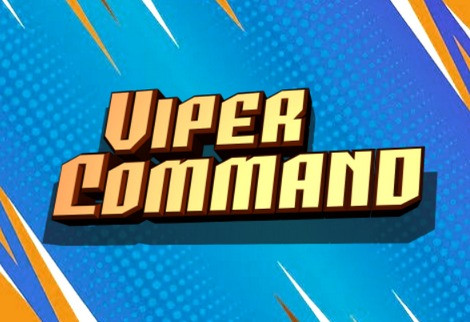
Viper Command Font
Viper Command Font is a bold, high-impact display font designed to command attention. With its strong geometric structure, sharp angles, and dynamic letterforms, Viper Commanddelivers a powerful futuristic and action-driven aesthetic. The thick strokes and solid construction make it perfect for headlines, gaming titles, posters, logos, and branding that needs to stand out.